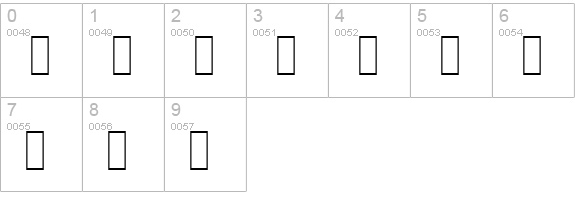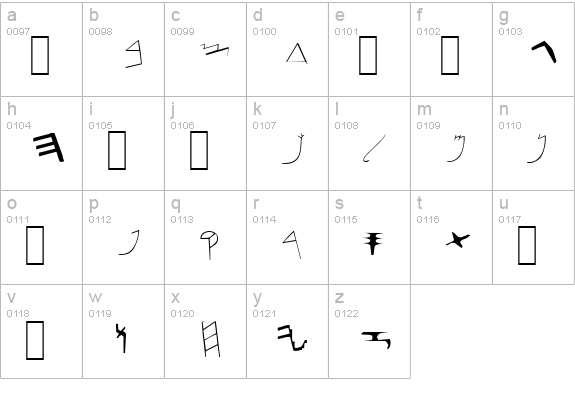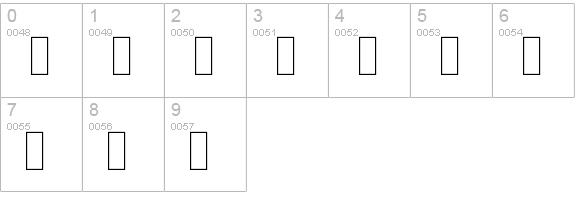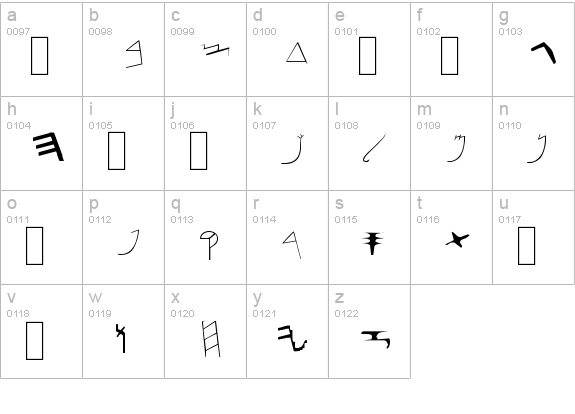
Paleo-Hebrew NormalA Font Details
Paleo-Hebrew NormalA font is a beautiful and elegant typeface that brings the ancient script of Paleo-Hebrew to life. With its authentic and intricate letterforms, this font captures the essence of the ancient Hebrew language, allowing users to transport themselves back in time to a bygone era. Designed with meticulous attention to detail, Paleo-Hebrew NormalA font showcases the characteristic shapes and strokes of the Paleo-Hebrew alphabet. Each letter is expertly crafted to reflect the historical origins of the script, ensuring a truly authentic and accurate representation. This font is not only visually stunning, but it also serves as a valuable resource for scholars, archaeologists, and history enthusiasts. Whether you are studying ancient Hebrew texts, researching historical artifacts, or simply fascinated by the ancient world, Paleo-Hebrew NormalA font is an essential tool that will enhance your understanding and appreciation of this ancient script. One of the best aspects of Paleo-Hebrew NormalA font is that it is freely available to download at FontsMarket.com. This means that you can easily access this remarkable font and use it in your projects without any cost. Whether you are designing a website, creating educational materials, or crafting a presentation, Paleo-Hebrew NormalA font will add a touch of authenticity and elegance to your work. Don't miss out on the opportunity to experience the beauty of Paleo-Hebrew NormalA font. Download it today from FontsMarket.com and unlock the power of this ancient script for your creative endeavors.